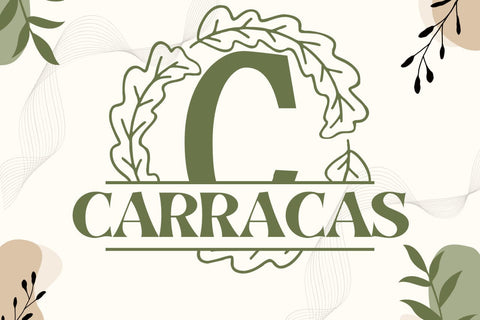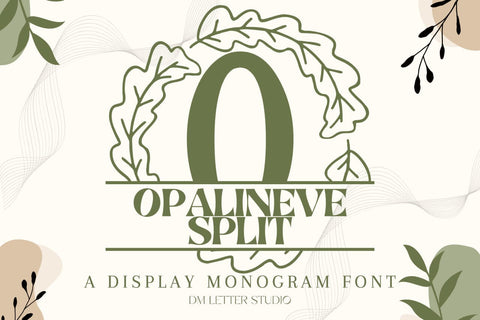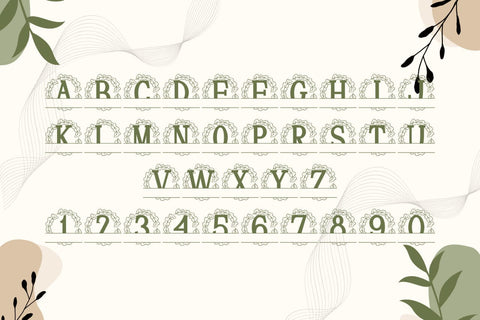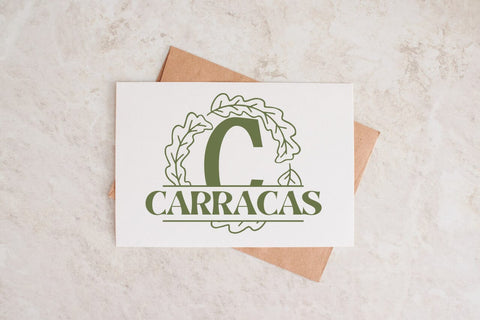
Opalineve Split Monogram Font
Meet Opalineve Split Monogram Font
Opalineve Split Monogram Font turns any initial into a luminous, name-ready emblem in seconds. Calm, balanced letterforms project quiet elegance, while a precise horizontal split creates natural space for names, dates, or short words. Because spacing stays even and counters remain open, designs look polished on tiny tags, door hangers, tumblers, ornaments, menus, and statement wall art. Pair it with a clean sans or a light script and every layout stays readable, premium, and on-brand.
Where this split monogram font shines
Set one hero initial, then place the family name inside the split for instant personalization. Try couple names for engagement gifts, venue names for signage, or short words like Home, Welcome, and Love for seasonal décor. Since the proportions favor clarity, files scale smoothly for Cricut, Silhouette, Glowforge, and laser projects. As a result, batch customization becomes fast and consistent across product lines and shop listings.
Design tips for Opalineve Split Monogram
Keep the hero initial large and let white space breathe. Place the split at center or slightly low for a calm baseline. Choose a simple secondary font inside the split to protect legibility on small items. Because the style is poised and luminous, metallic foils, linen textures, pearlescent stocks, and natural woods add instant value. Keep names concise so compositions stay balanced and clear at thumbnail size.
Uppercase alphabet optimized for split monograms
Matching lowercase, numbers, and punctuation
Curves tuned for engraving, foil, laser cutting, and clean vinyl paths
Why makers choose this split monogram font
You want fast personalization that still feels bespoke. Opalineve Split Monogram Font delivers consistent, high-end name designs in minutes while keeping your shop’s visual language cohesive from gifts to signage.